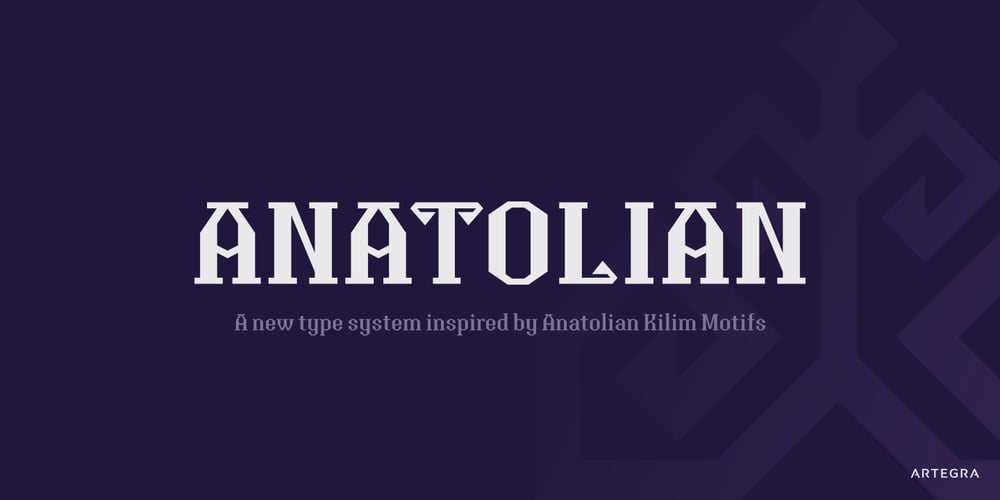
Anatolian
Anatolian font
Anatolian Font Family was designed by Ceyhun Birinci and published by Artegra. Anatolian contains 12 styles and family package options. Anatolian typeface was designed with inspiration from the traditional Anatolian kilim motifs and symbols that characterize Turkish culture. Motifs and design elements that has been used for centuries on carpets now found place in a typeface as serifs. It was exciting to see how these old design elements would turn into a modern font that would be applicable for modern designs.